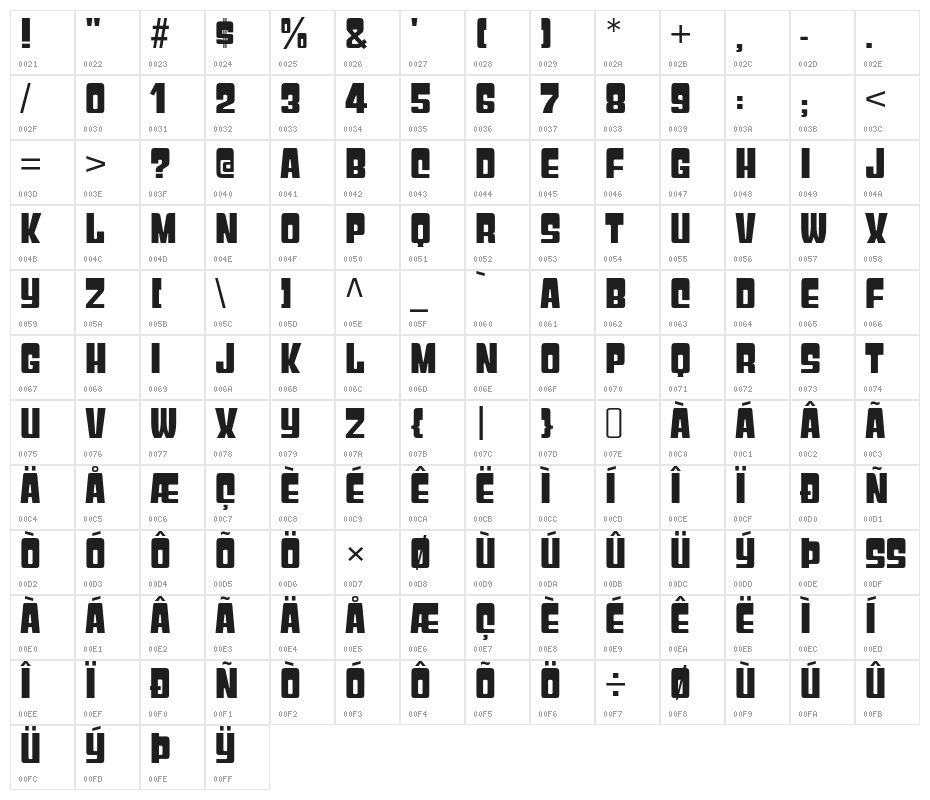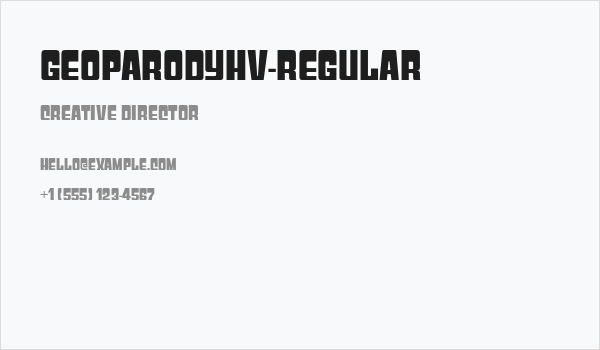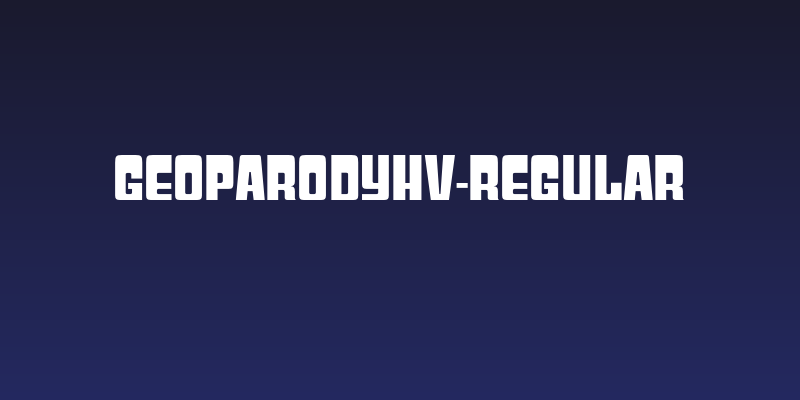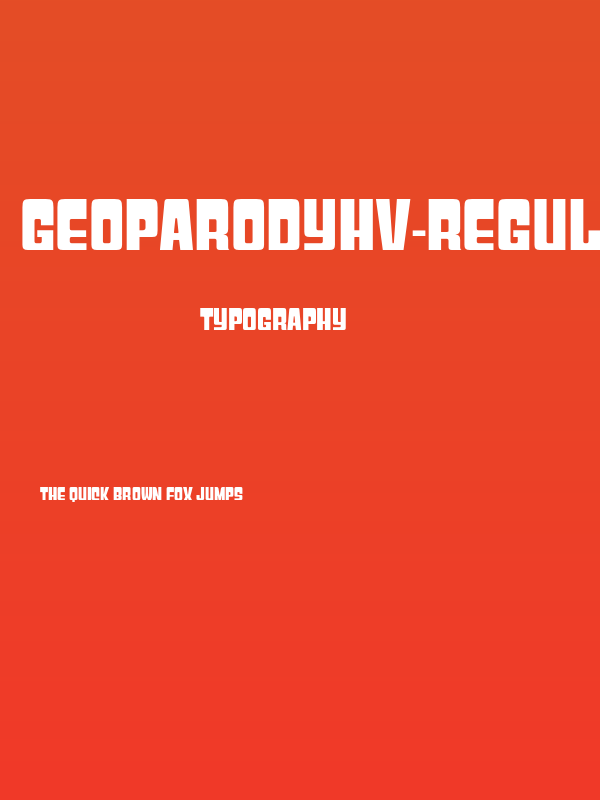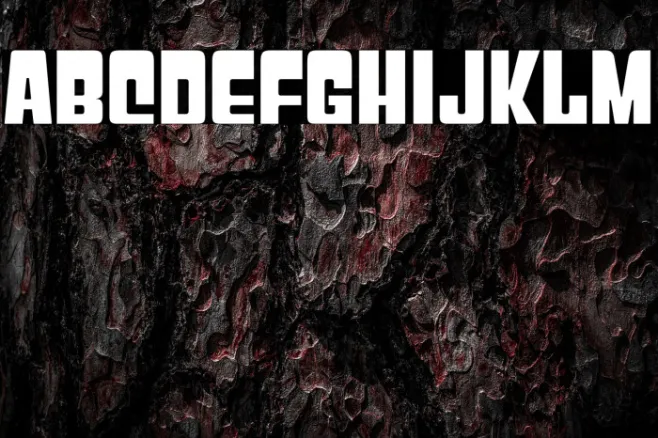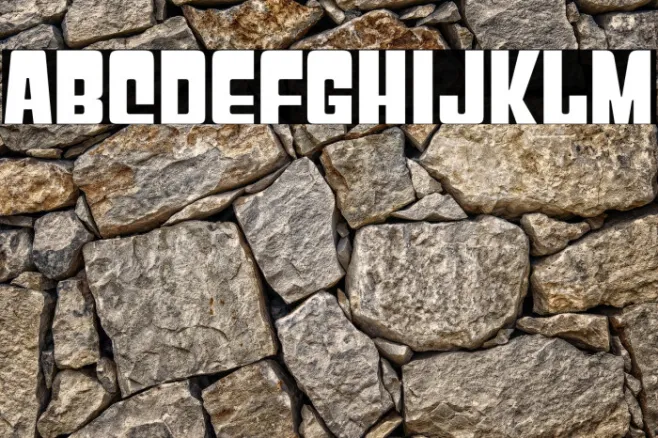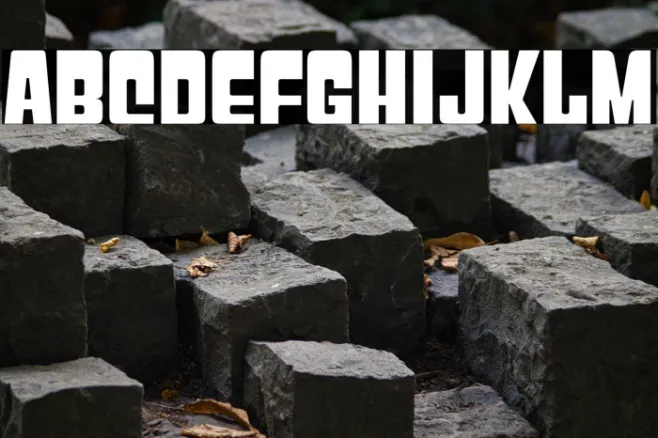
GeoparodyHv-Regular Font
GeoparodyHv-Regular Description
This font features a bold and impactful design with strong geometric shapes and a modern aesthetic. The characters are uniformly wide, creating a sense of stability and strength. The uppercase letters are particularly striking, with sharp angles and clean lines that convey a sense of authority and confidence. The numbers and special characters maintain the same boldness, ensuring consistency across all text. This font is ideal for making a statement, with its high contrast and solid presence.